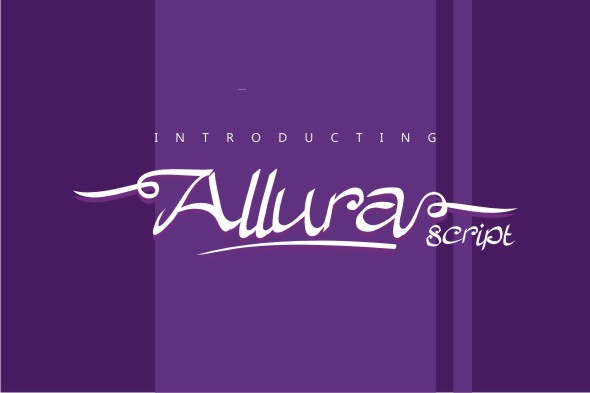
Journey into the realm of enchanting scripts with Allura Script Font, a mesmerizing creation by Arip Santoso. Bask in the glory of its playful strokes, each letter dancing with an elegant grace that captivates the eyes. Immerse yourself in a world of artistry, where words transform into visual masterpieces, evoking emotions and leaving a lasting impression.
With Allura Script's enchanting curves and swashes, your designs will blossom into works of art. This font is the embodiment of joy and romance, injecting a touch of whimsy into your creative endeavors. Let your imagination soar as you craft logos, posters, invitations, and social media posts that radiate warmth and charm.
Visualize the allure of your wedding invitations adorned with Allura Script's elegant calligraphy. Picture the delight of your loved ones as they receive these beautifully crafted messages, each one a testament to your love and attention to detail. The font's playful spirit adds a touch of lightheartedness to the occasion, setting the tone for a joyful celebration.
Step into the world of graphic design and let Allura Script be your muse. Create eye-catching posters and flyers that demand attention. This font's captivating curves and swashes will draw viewers in, enticing them to explore your designs and discover the stories they tell. Make a statement with your branding, using Allura Script to leave an unforgettable mark on your audience.
Explore the boundless possibilities of social media with Allura Script. Design posts that exude creativity and personality. Engage your followers with captivating visuals that speak volumes. From heartfelt quotes to inspiring messages, let Allura Script amplify your voice and connect with your audience on a deeper level.
With Allura Script, your creative projects will radiate warmth, charm, and a touch of playful elegance. Embrace the beauty of this font and watch your designs transform into captivating works of art.